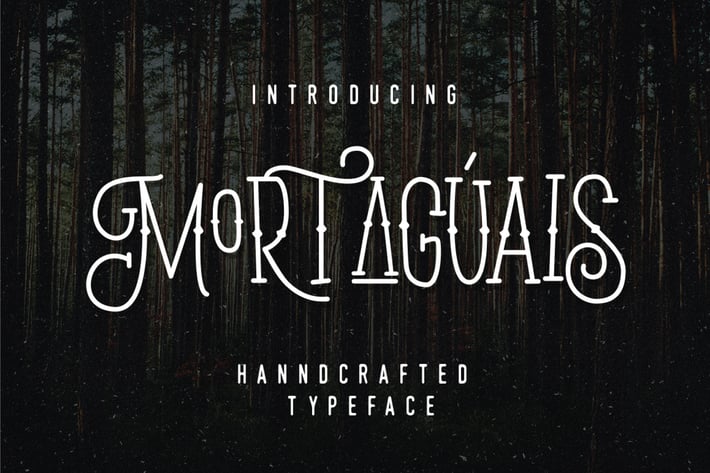
Mortaguais Display Font Monoline
Mortaguais is display font intended to use in retro and vintage design styles. It is suitable for poster, t-shirt, lettering, greeting card, etc. Foreplay contains ornamental uppercase that can be used to create a stand out and attractive message.
The alternative characters were divided into several Open Type features such as Swash, Stylistic Sets, Stylistic Alternates, and Swash. The Open Type features can be accessed by using Open Type savvy programs such as Adobe Illustrator, Adobe InDesign, Adobe Photoshop Corel Draw X version, And Microsoft Word. And this Font has given PUA unicode (specially coded fonts). so that all the alternate characters can easily be accessed in full by a craftsman or designe